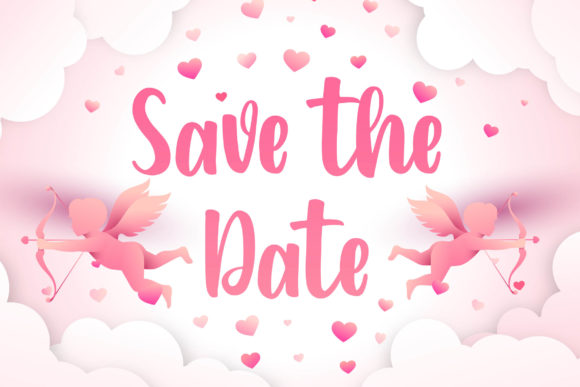
Thinkle Bloom Font
db-ku.com - Script & Handwritten -- Thinkle Bloom is a quirky and sweet script with a romantic spark. Use it to add that personal touch to any craft!